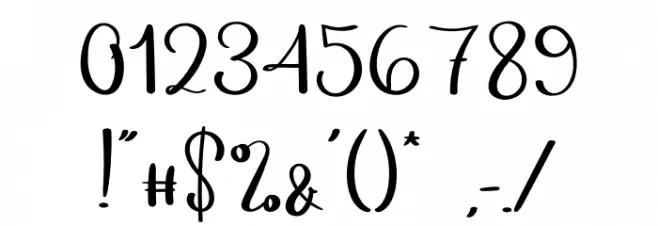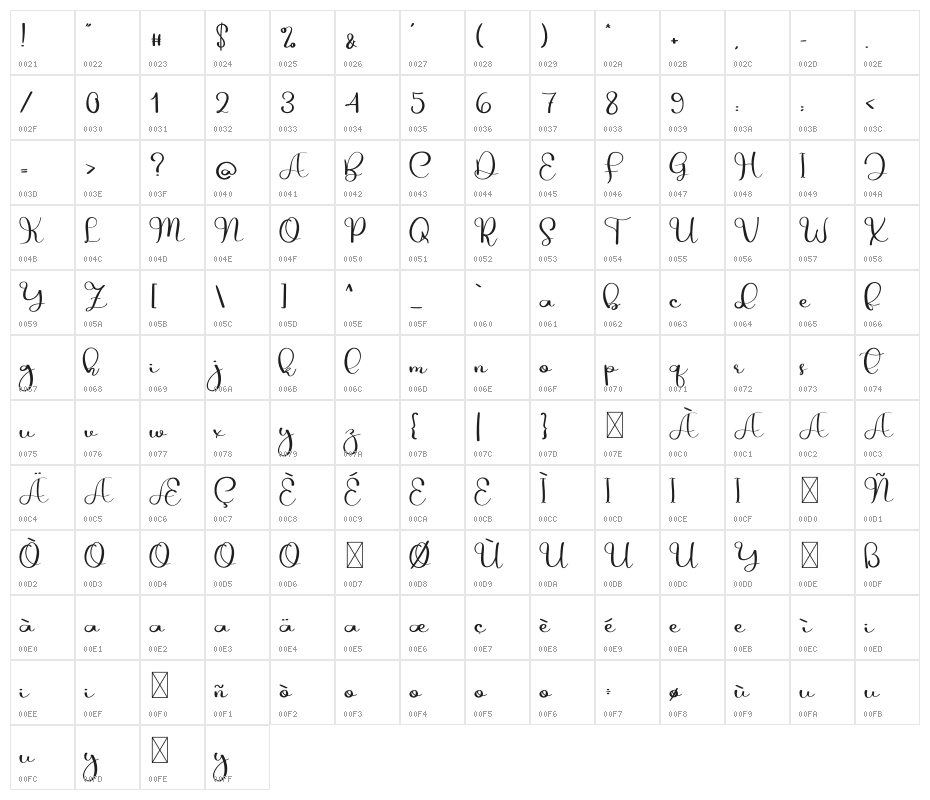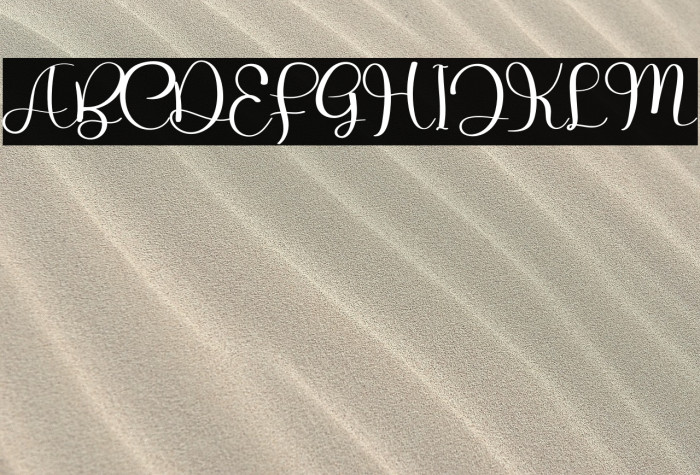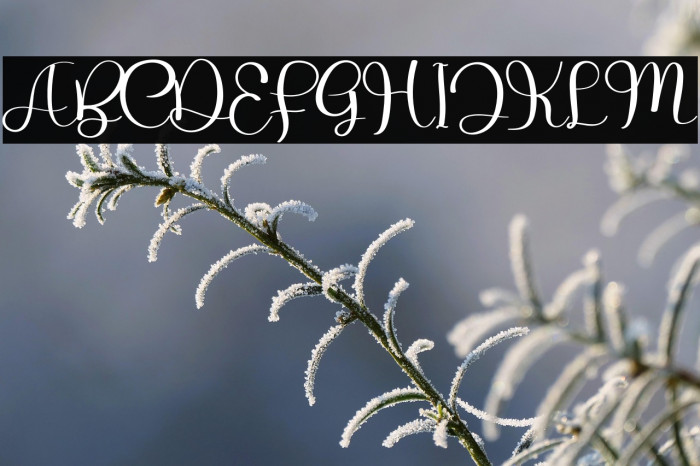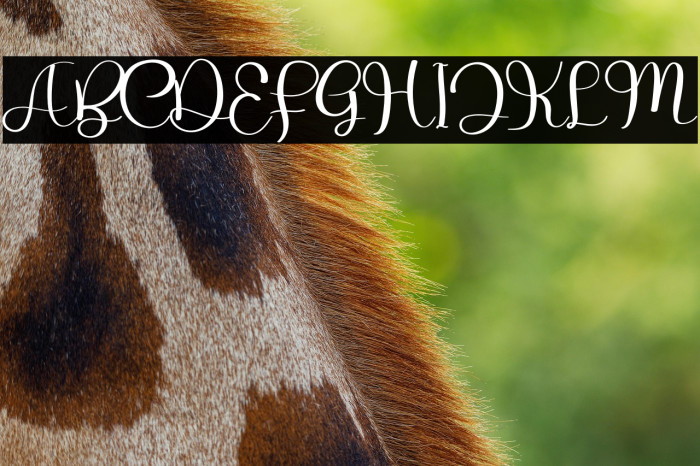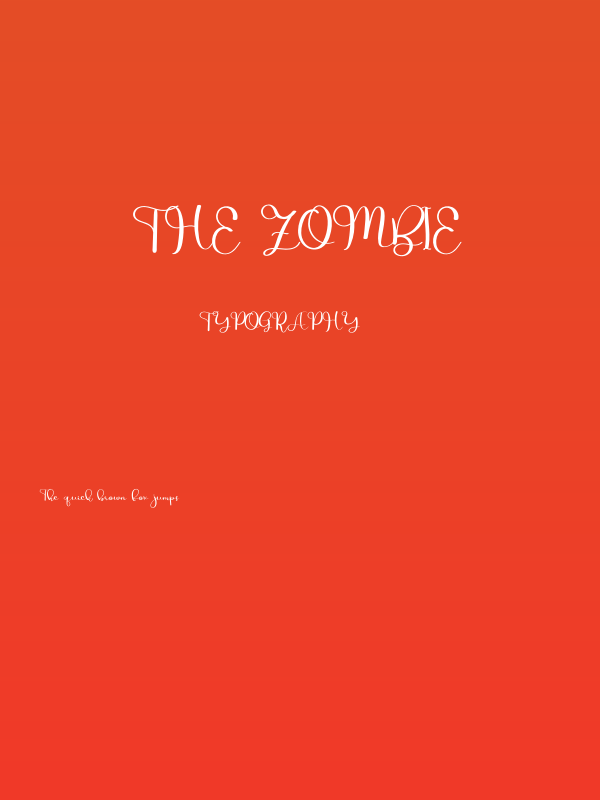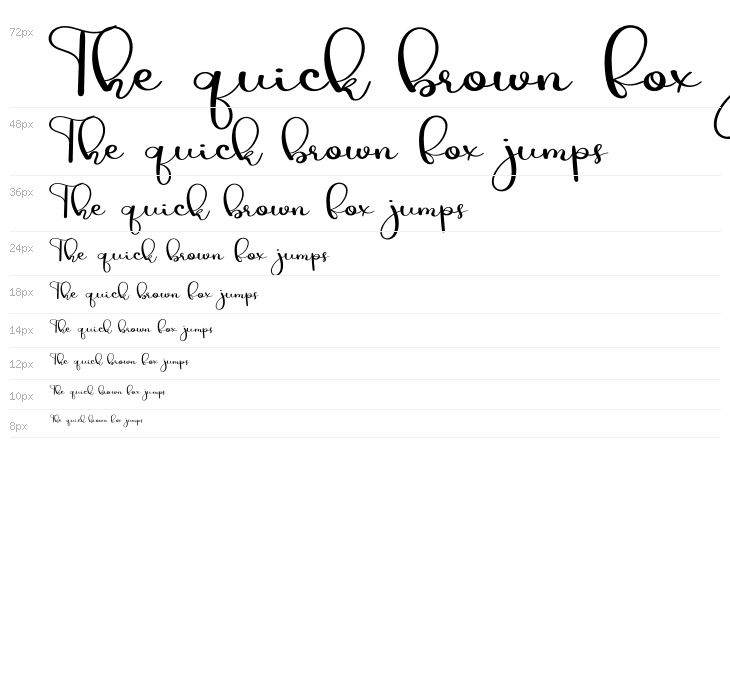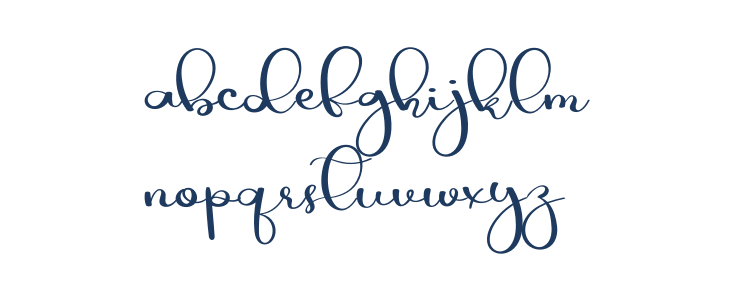
The Zombie Font
The Zombie Description
This font features an elegant and flowing script style, characterized by its smooth, cursive letterforms that exude a sense of sophistication and grace. The uppercase letters are intricately designed with loops and swirls, giving them a decorative flair, while the lowercase letters maintain a consistent fluidity that enhances readability. The numerals are bold and slightly whimsical, complementing the overall aesthetic. Special characters are thoughtfully crafted, maintaining the font's cohesive style. This font is perfect for projects that require a touch of elegance and creativity.